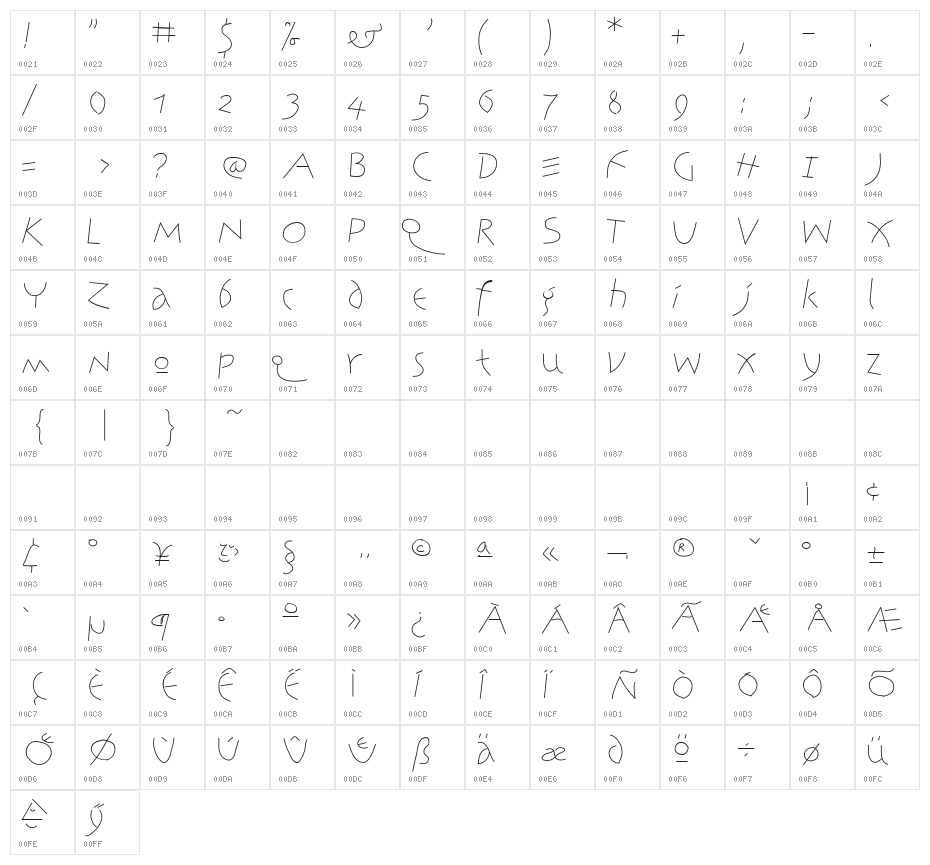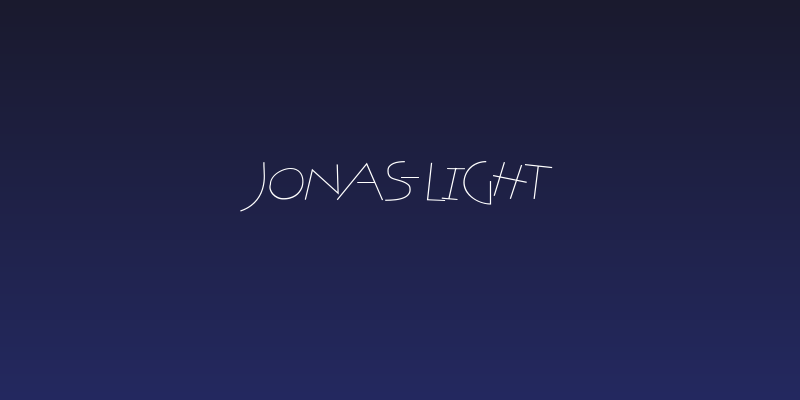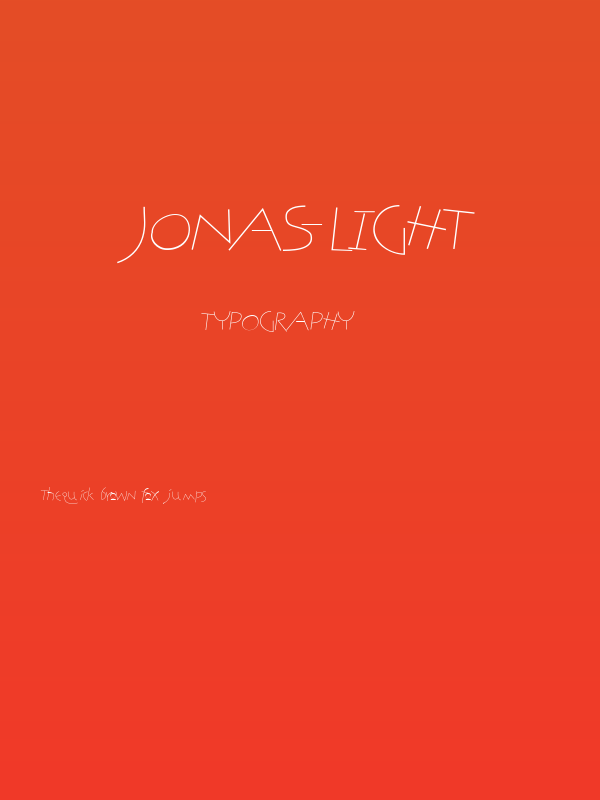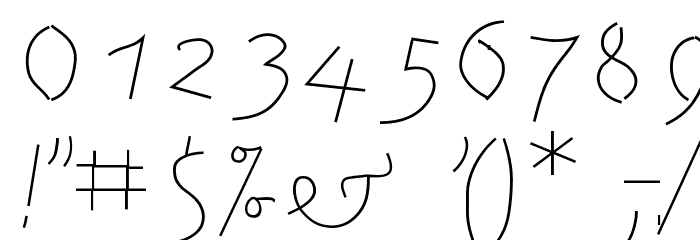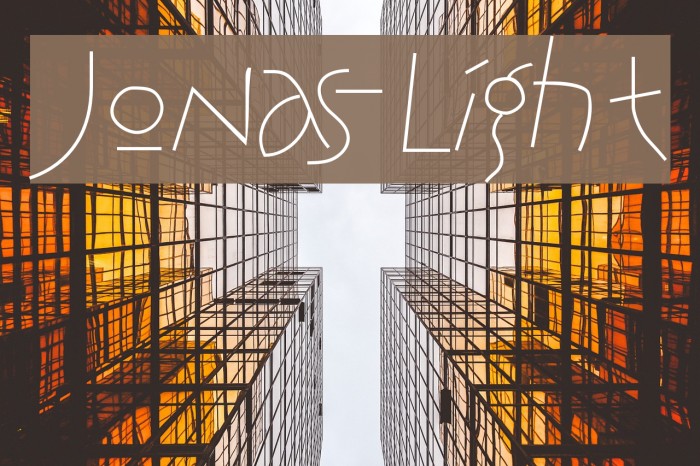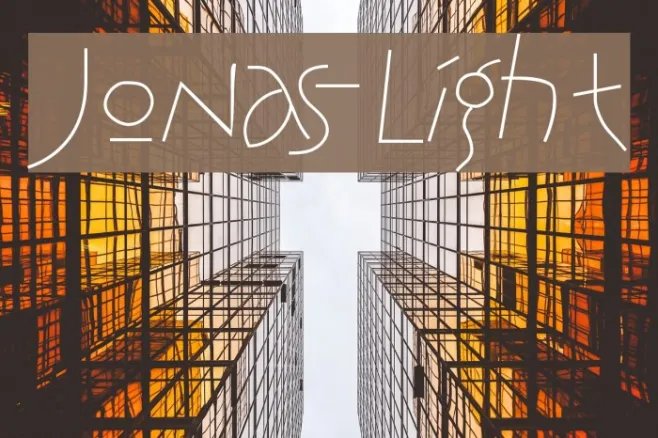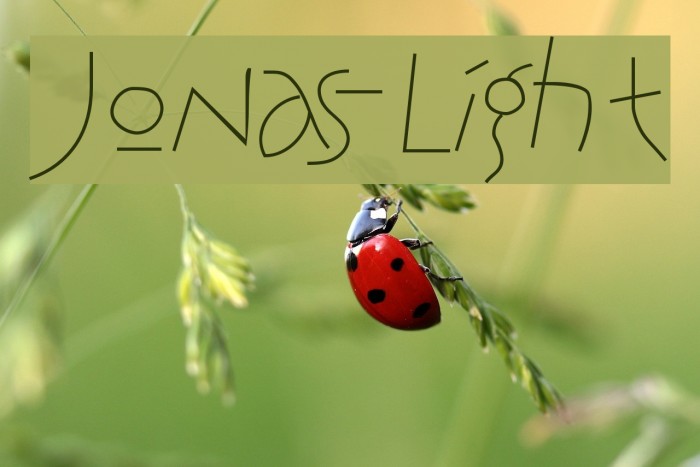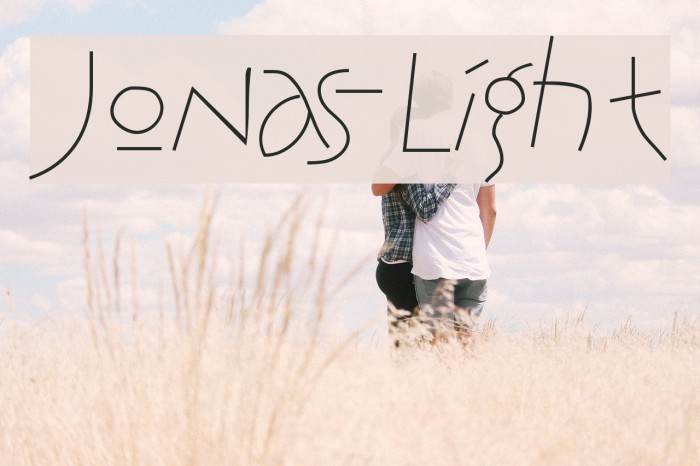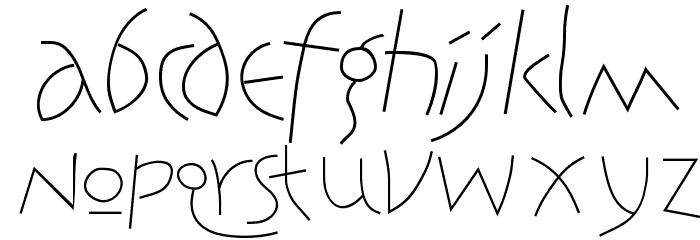
Jonas-Light Font
Jonas-Light Description
This font features a unique and artistic design with a playful, handwritten style. The characters are thin and elongated, giving them a light and airy appearance. The strokes are smooth and fluid, with some letters incorporating whimsical curves and loops. The overall look is modern and creative, making it suitable for projects that require a touch of personality and flair. The numerals and special characters maintain the same artistic style, ensuring consistency throughout the font.
| Use Case | Logos, Artistic posters, Greeting cards |
| Proposed Projects | Ideal for creative projects such as greeting cards, invitations, artistic posters, and branding materials that require a personal touch. |